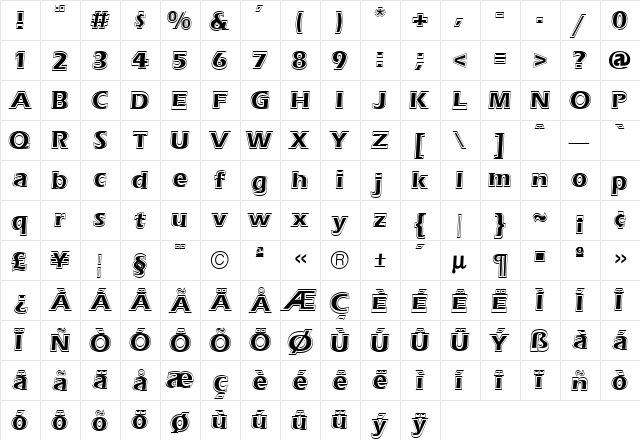
EerieContour Regular
Design Context for EerieContour Typeface
EerieContour is a composed and adaptable typeface that performs quietly and consistently across a wide range of design contexts.